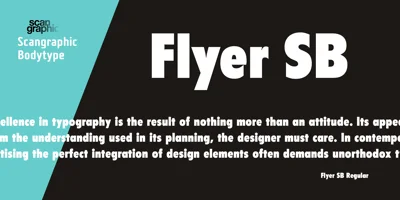
Flyer SB Font is an exceptional choice for projects that demand a sense of dynamic energy, bold impact, and a distinctly modern, streamlined aesthetic. It's perfectly suited for attention-grabbing headlines, sports graphics, event promotions, advertising campaigns, and any application where you want to convey speed, excitement, and immediate recognition. Imagine it soaring across a digital marketing banner, providing a powerful and authentic feel to a new product launch, or adding a sleek, high-energy look to a concert poster. Its strong, often condensed forms and assertive character ensure your message is conveyed with both immediate recognition and an undeniable sense of thrilling momentum.
What makes Flyer SB Font so exciting is its ability to instantly infuse a design with a feeling of forward motion and an unyielding, confident presence. It captures the essence of powerful communication, making it ideal for projects that aim to feel impactful, dynamic, and deeply memorable. This font isn't just about displaying text; it’s about making a statement, grabbing attention, and conveying a sense of high-speed performance and stylish urgency. It's the ideal tool for designers looking to infuse their work with a unique, energetic character and a strong, electrifying appeal.
The Flyer SB Font family typically offers a range of weights and styles to provide robust design flexibility, often emphasizing its unique condensed or bold characteristics. You might find a standard Regular weight that embodies its core energetic design, along with potential variations that enhance its visual impact, such as bolder versions for maximum emphasis or slight stylistic alterations that reinforce its dynamic character. These nuances ensure that Flyer SB Font can be the cornerstone of a truly unique and powerfully thematic visual identity, helping your designs stand out with an undeniable sense of character and unbridled force.